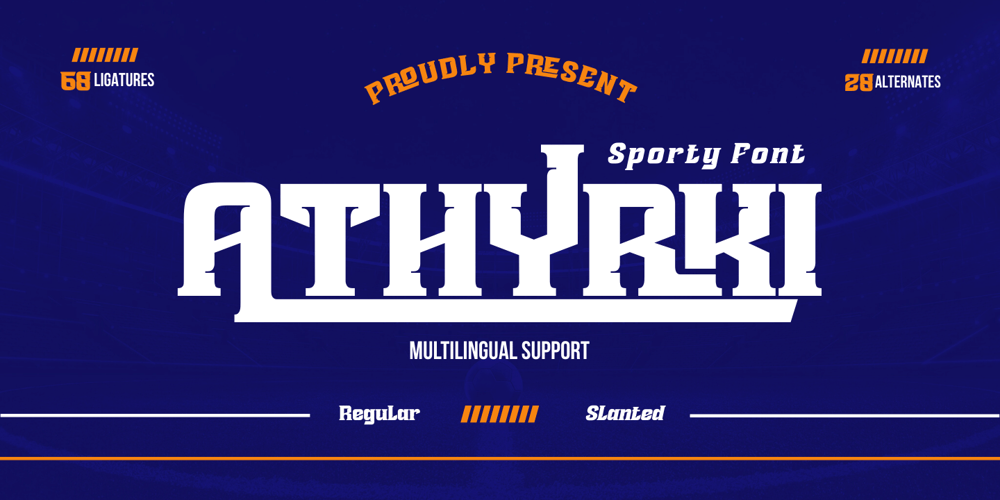
Athyrki Font Family was designed by Rozikan and published by Twinletter. Athyrki contains 2 styles and family package options. ATHYRKI is a bold serif font inspired by the evolving world of sports that has recently expanded into digital verse. ATHYRKI’s round and sharp appearance represent its unified nature, equipped with different alternate and ligature features, this font displays its modern mixed style. Accented fonts with the ability to spice up your project for that extra flair to the visuals.What’s Included : File font All glyphs Iso Latin 1 Alternate, Ligature Simple installations We highly recommend using a program that supports OpenType features and Glyphs panels like many Adobe apps and Corel Draw, so you can see and access all Glyph variations. PUA Encoded Characters – Fully accessible without additional design software. Fonts include Multilingual support